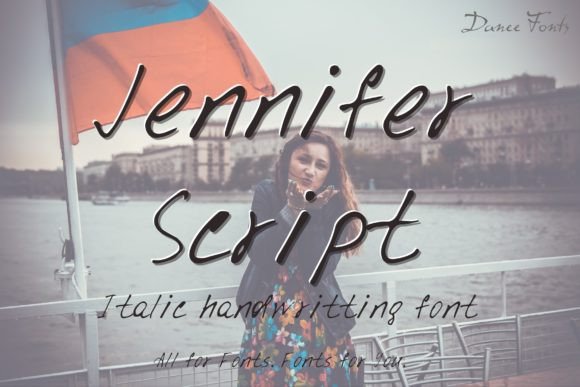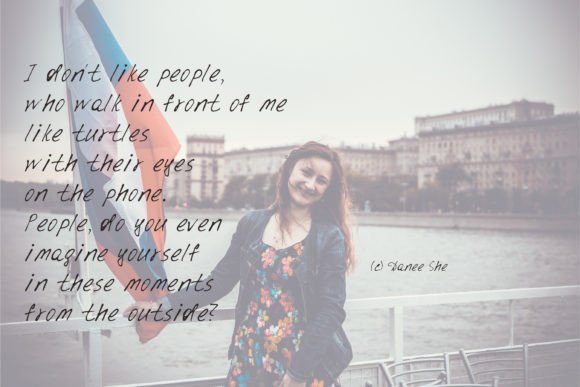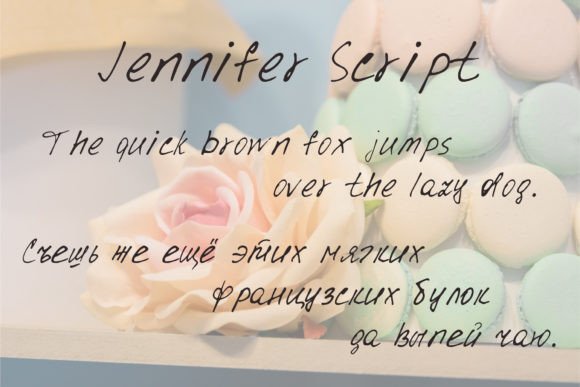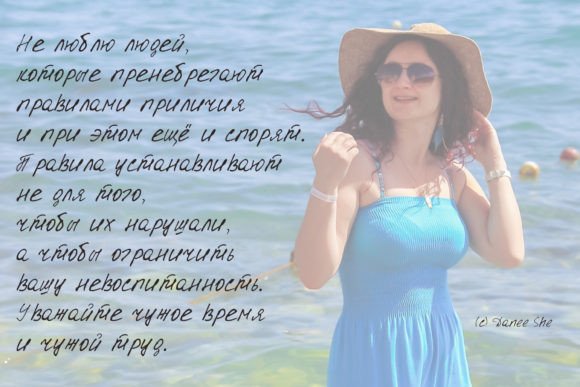
Jennifer Script Font
A Charming and Elegant Handwritten Script
Jennifer Script is a graceful handwritten font designed to add beauty and warmth to your creative projects. Each letter features smooth curves and balanced shapes that feel refined and inviting. The combination of charm and elegance makes this font a perfect choice for designs that need a personal touch.
Whether you’re working on branding materials or personal stationery, Jennifer Script transforms your text into something memorable and unique.
Jennifer Script is a versatile font that adapts effortlessly to many uses. It’s ideal for wedding invitations, save-the-date cards, and event signage. The flowing style creates a romantic atmosphere that feels timeless and sophisticated.
Use Jennifer Script for thank-you cards, greeting cards, and quotes. The handwritten feel adds warmth and authenticity to every message.
This font also shines in logos, business cards, and product packaging. Its clean, elegant lines make your brand look professional and approachable at the same time.
Jennifer Script works beautifully for social media graphics, blog headers, and promotional materials. The stylish details help your content stand out and leave a lasting impression.
The font includes uppercase and lowercase letters, numbers, and punctuation marks. Ligatures are included to ensure your text flows naturally and looks cohesive.
Clear, Refined, and Easy to Read
Even though Jennifer Script has a decorative handwritten style, it remains clear and legible in any size. Balanced spacing between letters keeps your text tidy, whether you’re designing large headlines or small captions.
Many designers pair Jennifer Script with a clean sans-serif font to create contrast. Use Jennifer Script for titles and the sans-serif for supporting text. This combination guides the reader’s eye and creates a modern, organized look.
To showcase Jennifer Script’s elegance, use soft backgrounds and muted color palettes. Shades like ivory, blush, and light gray let the flowing strokes stand out without distraction.
When designing wedding materials or romantic branding, consider adding watercolor elements or delicate illustrations to enhance the sophisticated feel. For packaging and social media, keep layouts minimal so the typography stays in focus.
Think about the mood you want to create. Jennifer Script is perfect for designs that should feel heartfelt, stylish, and timeless.
Jennifer Script is more than just a handwritten font. It’s a design asset that transforms everyday words into something special. Its clean curves and romantic details bring beauty and charm to any project.
Adding Jennifer Script to your font collection gives you a reliable choice for all types of creative work. From weddings and branding to packaging and social media, this font adapts easily to your ideas.